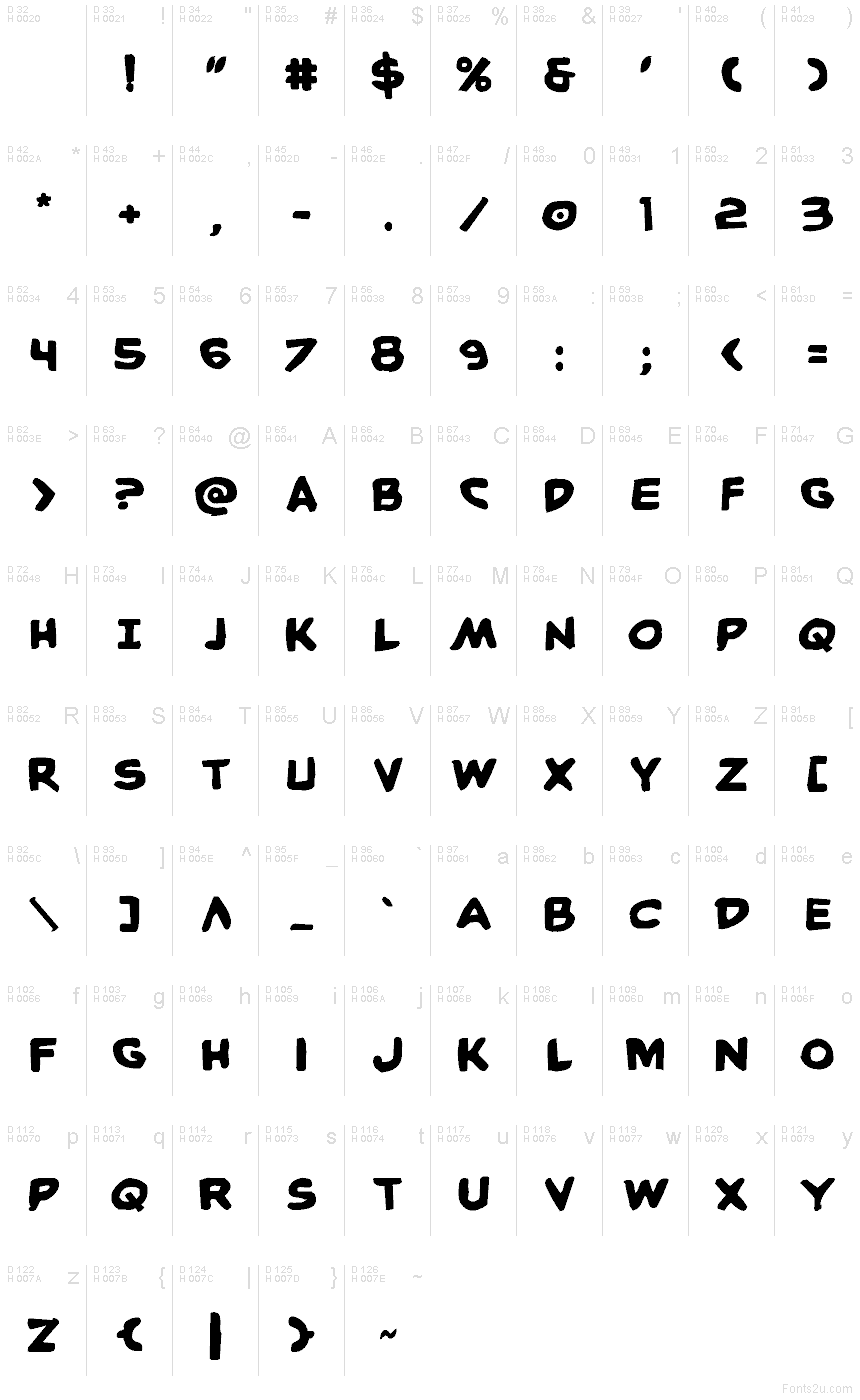
Caped Crusader Warped
Caped Crusader Warped font is a comic-styled design by Iconian Fonts. This expanded display font has a bold yet irregular chunky presence resulting from its retro influence. This form and overall concept are inspired by comic book typography to give you a powerful type with a solid visual impact.